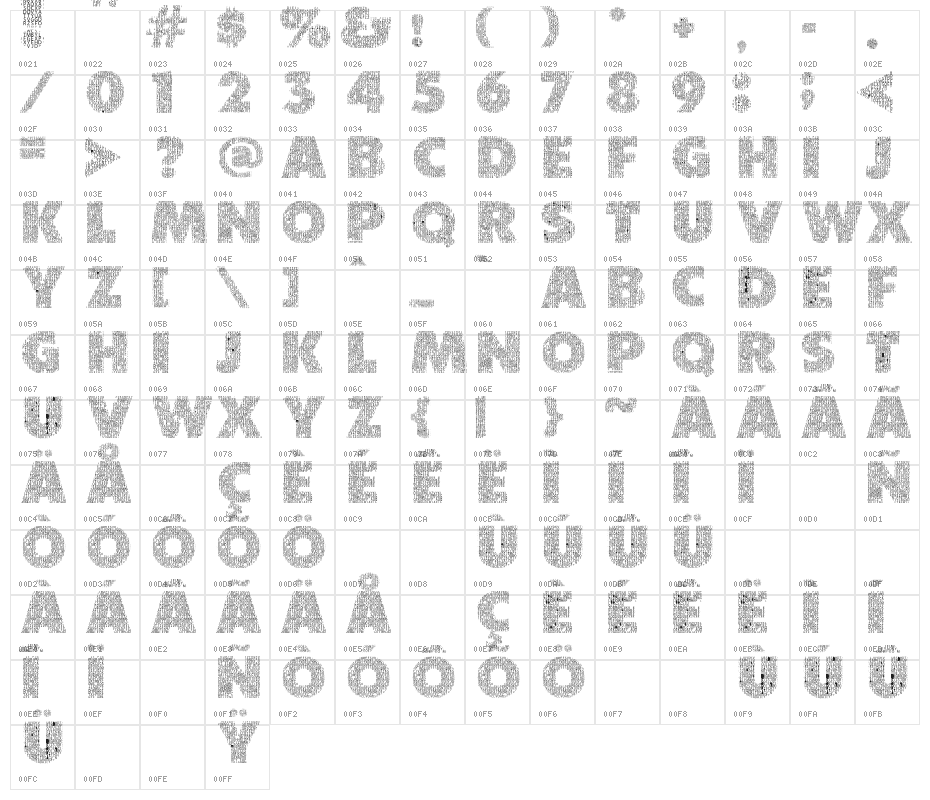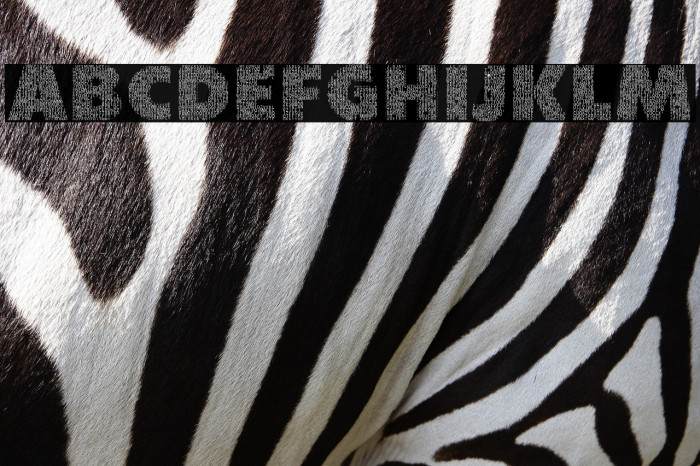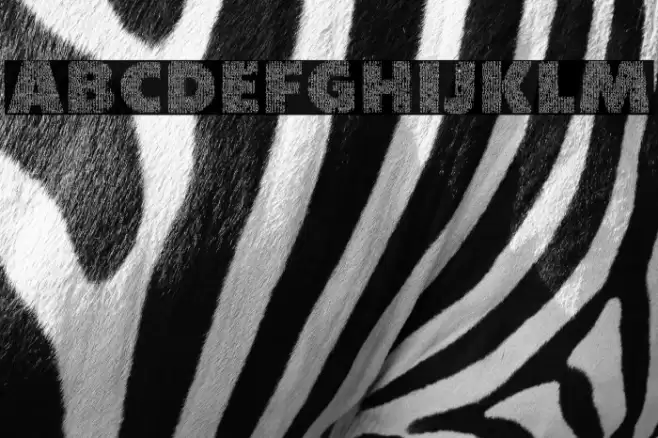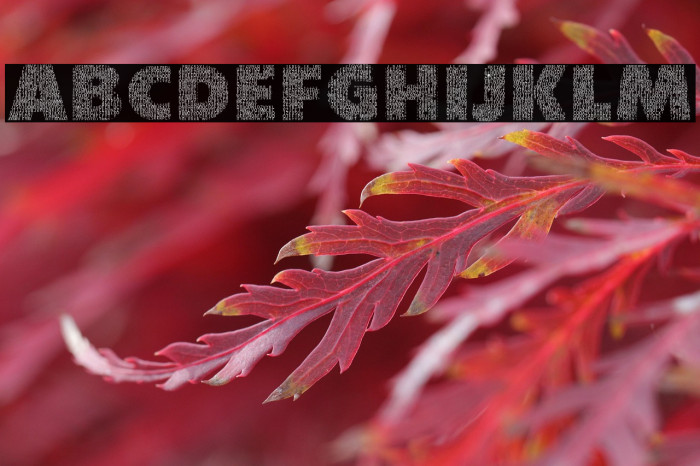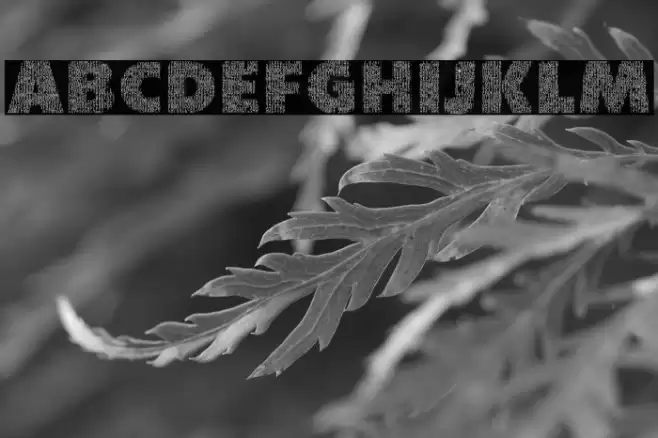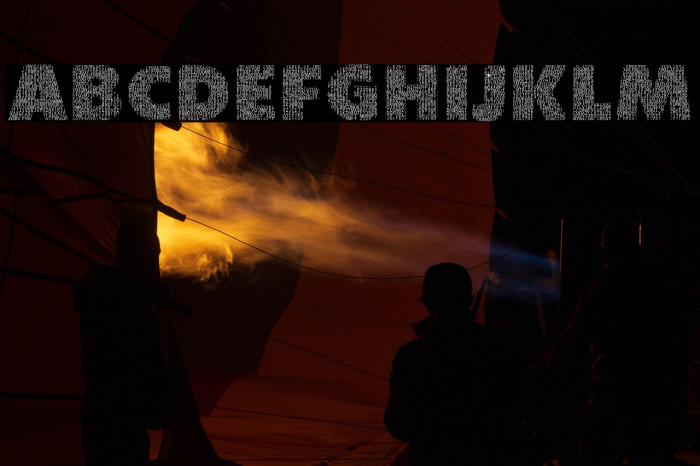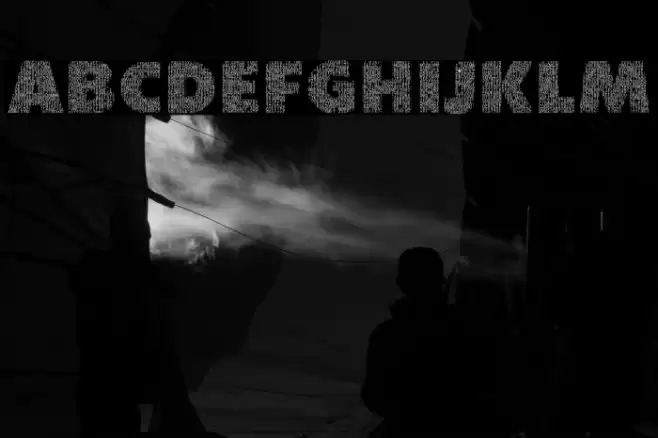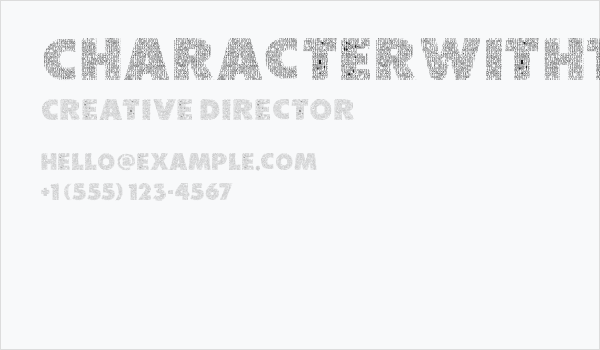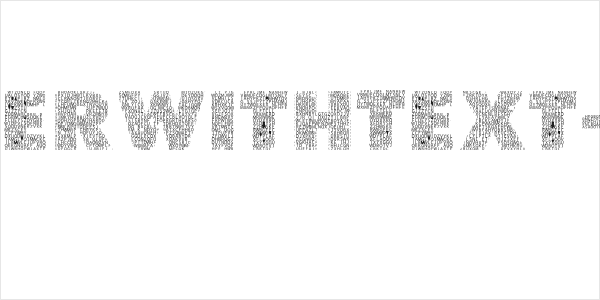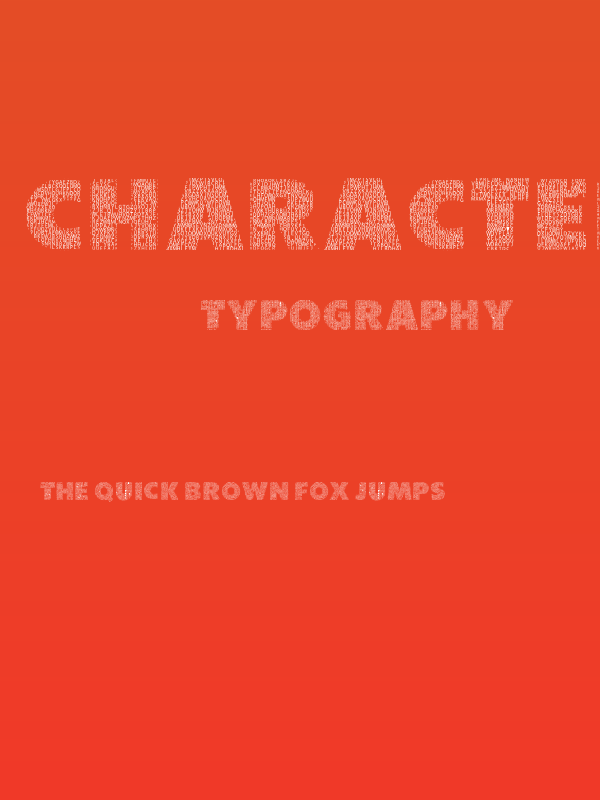
CharacterwithText-Regular Font
CharacterwithText-Regular Description
This font features a unique design where each character is composed of small, intricate text patterns. The overall appearance is bold and eye-catching, making it suitable for projects that require a strong visual impact. The uppercase and lowercase letters maintain a consistent style, with numbers and special characters following the same pattern. The font's decorative nature makes it ideal for creative and artistic applications.
| Proposed Projects | Ideal for posters, album covers, artistic branding, and creative digital media. |